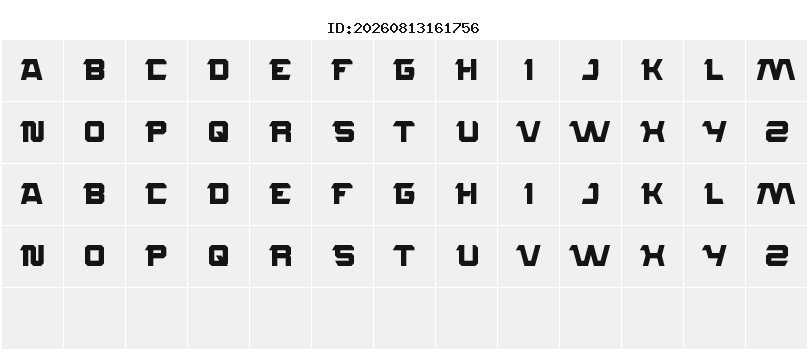
ROCKSTEADY Preview
• Font Name: ROCKSTEADY
• Full Font Name: ROCKSTEADY
About ROCKSTEADY.ttf
ROCKSTEADY.ttf is a modern, elegant sans-serif font designed for ultimate readability and visual harmony. Perfect for branding, headlines, web design, and print materials.